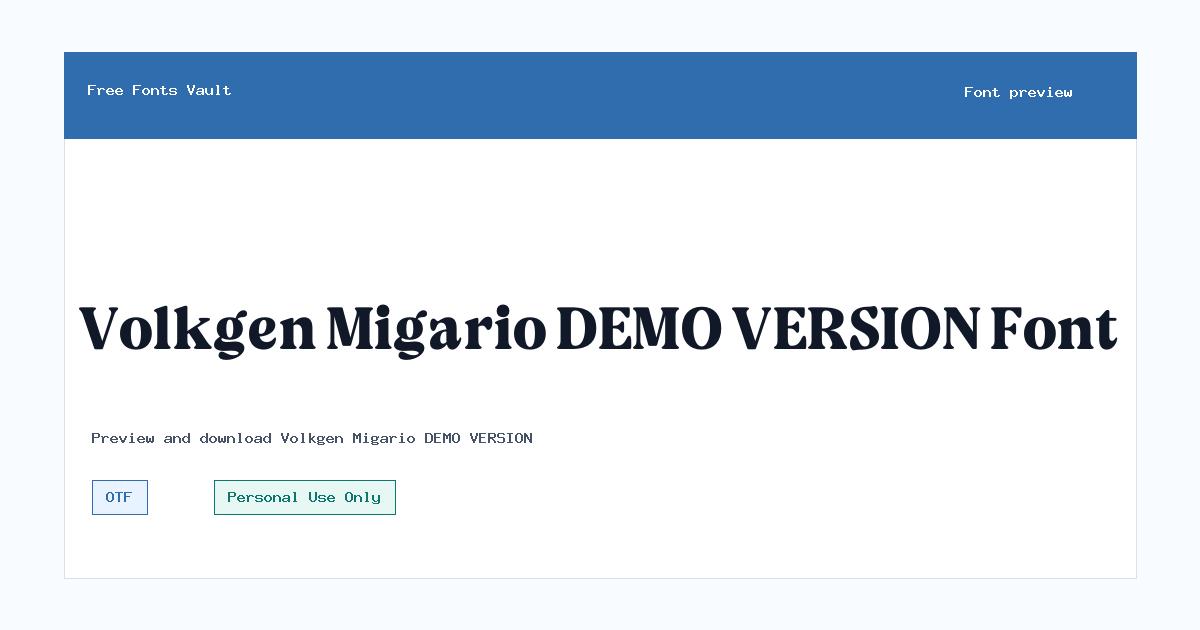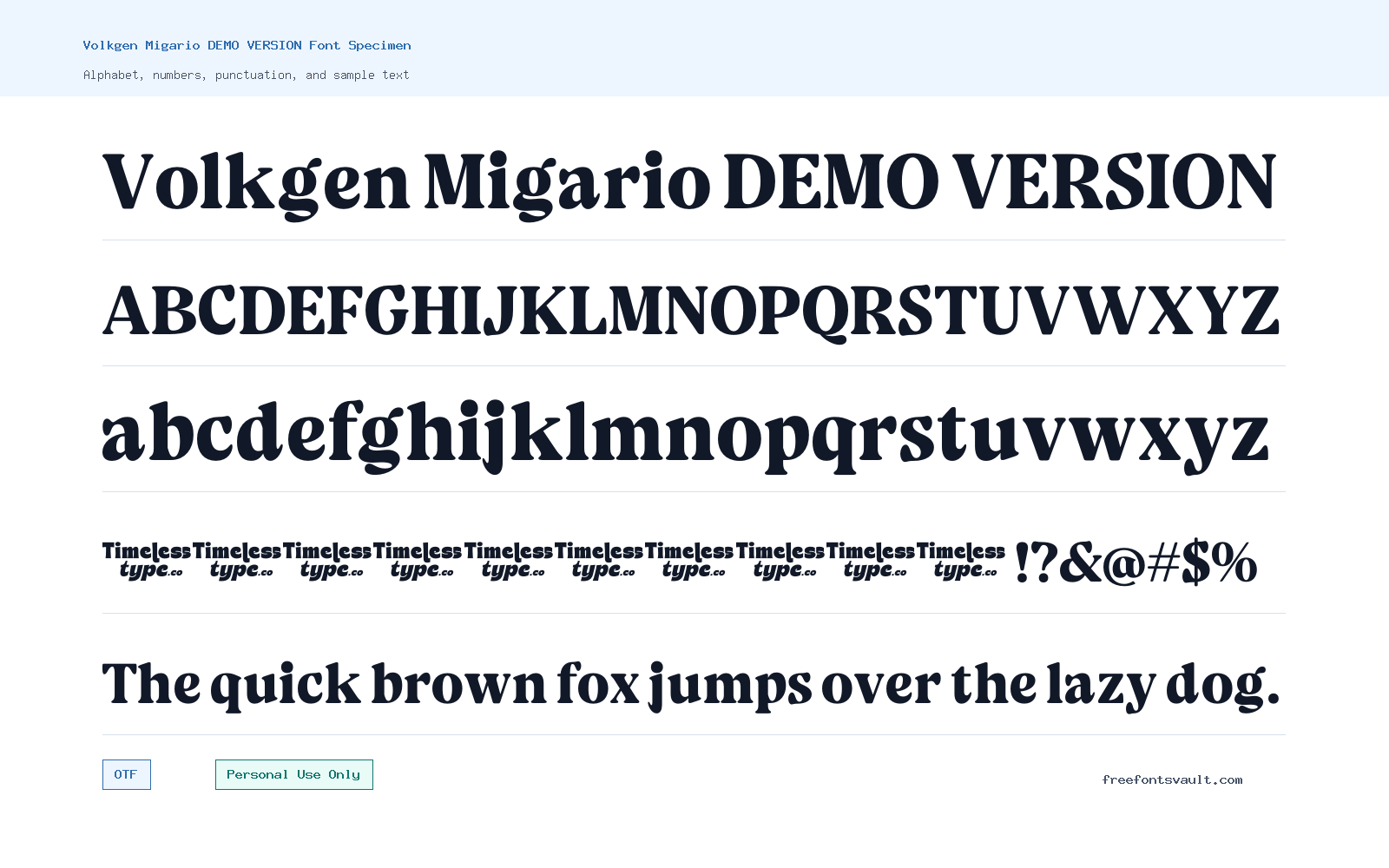
Volkgen Migario DEMO VERSION
- Designer Heru Utama Putra
- Foundry TimelessType
Volkgen Migario DEMO VERSION font.
Volkgen Migario DEMO VERSION is a serif demo font for personal projects, previews, and early design tests. It is credited to Heru Utama Putra and TimelessType, and its license is marked Personal Use Only.
About Volkgen Migario DEMO VERSION
Volkgen Migario DEMO VERSION is best treated as a serif display font to test when you need a title with more personality than a plain text face. Since the file is a demo version, it makes the most sense for trying out layouts, checking a visual direction, or building personal-use mockups before you decide whether the style fits your project. Use the preview tool with your own words rather than judging it from the font name alone. A name, a short phrase, and a longer headline will usually tell you more than a sample alphabet.
For designers, the safest way to work with Volkgen Migario DEMO VERSION is to start with short, visible text: logo drafts, poster titles, social graphics, invitation headings, packaging mockups, or website hero concepts. Serif display fonts can look strong in a few words but may become harder to read in long paragraphs, so test spacing, uppercase letters, punctuation, and small sizes before using it in a full layout. If you are building a logo concept, check how the first and last letters sit together, whether the word shape stays clear, and whether the font still reads well when scaled down for icons or profile images.
- Regular style with normal weight listed as 400, useful for testing headline and display layouts without managing multiple weights.
- Serif classification appears in the license text, so it should be approached as a serif option rather than a sans serif or script font.
- Personal logo concepts and brand direction studies where you need to test a serif display voice.
- Poster titles, quote graphics, moodboards, invitations, and social media artwork for personal projects.
- Website hero mockups or landing page comps where the font is used in a large headline rather than long body copy.
- Pairing tests with a simple sans serif for menus, captions, buttons, and longer reading sections.
Volkgen Migario DEMO VERSION is credited to designer Heru Utama Putra and foundry TimelessType. The related designer or license link points to TimelessType.co.
Use this font where the lettering can be large enough to show its serif character. For logo work, test the exact brand name in uppercase, lowercase, and title case if those options are available in your design app. For posters and web mockups, pair it with a quieter sans serif or a neutral text serif so the headline does the visual work and the supporting copy stays easy to read. Avoid relying on it for long paragraphs until you have checked line spacing, readability, and punctuation in the preview.
Who designed Volkgen Migario DEMO VERSION?
The font is credited to Heru Utama Putra, with TimelessType listed as the foundry.
What is Volkgen Migario DEMO VERSION best used for?
It is most practical for personal-use headline testing, logo drafts, posters, invitations, social graphics, and web design mockups where a serif display style is needed.
What should I pair it with?
Start with a clean sans serif for body text, navigation, captions, or small labels. Let Volkgen Migario DEMO VERSION handle the headline or logo text, then keep the supporting type simple.